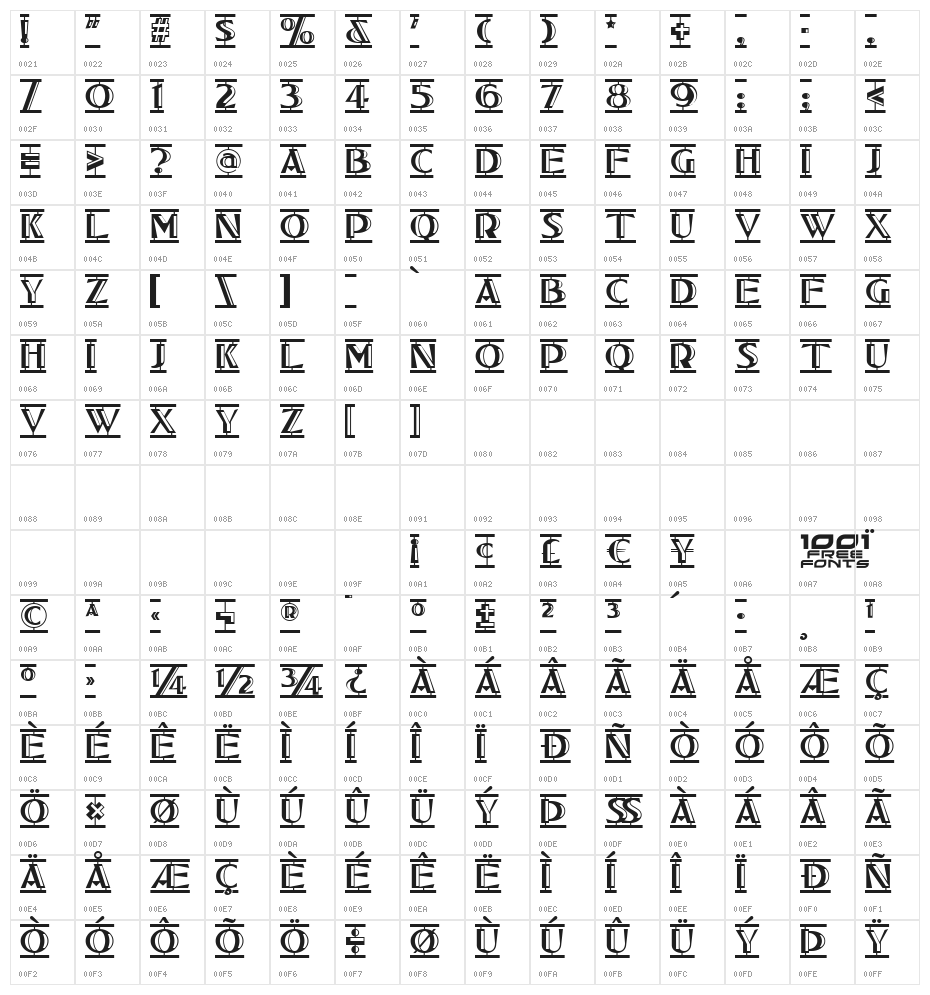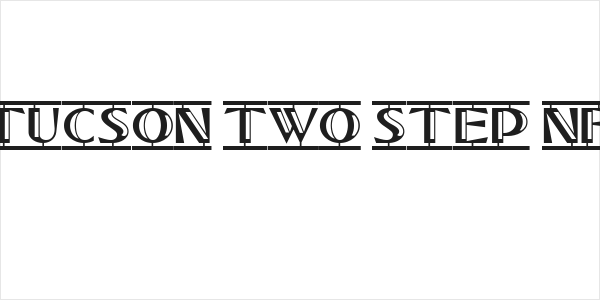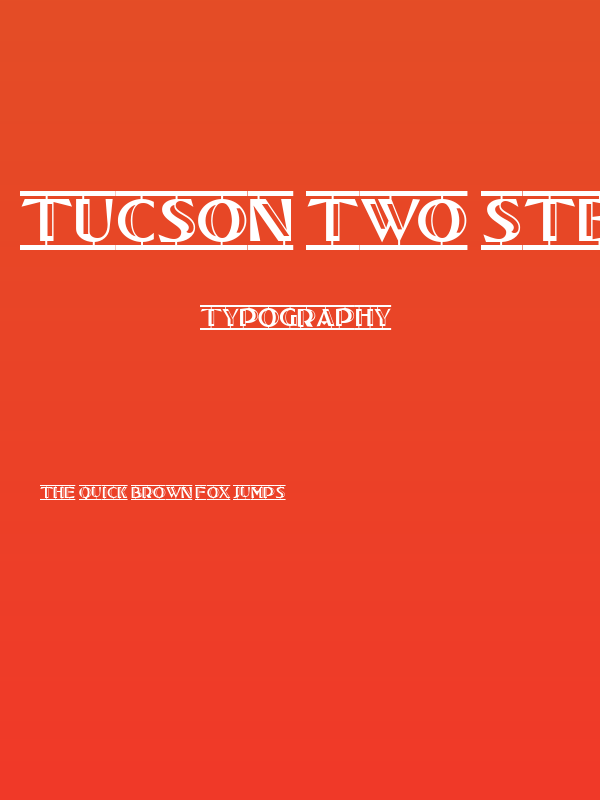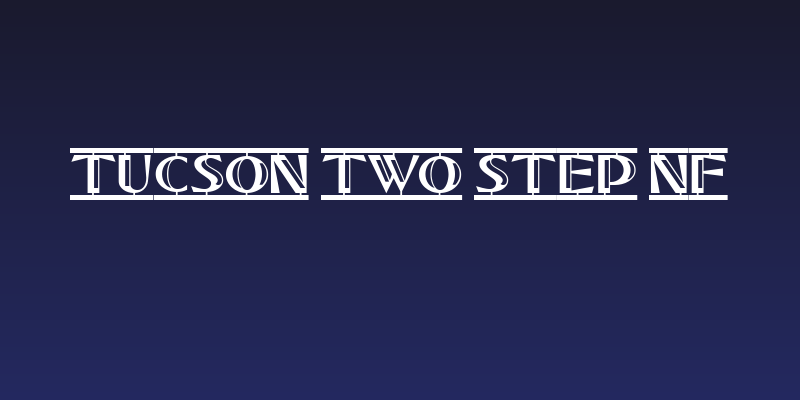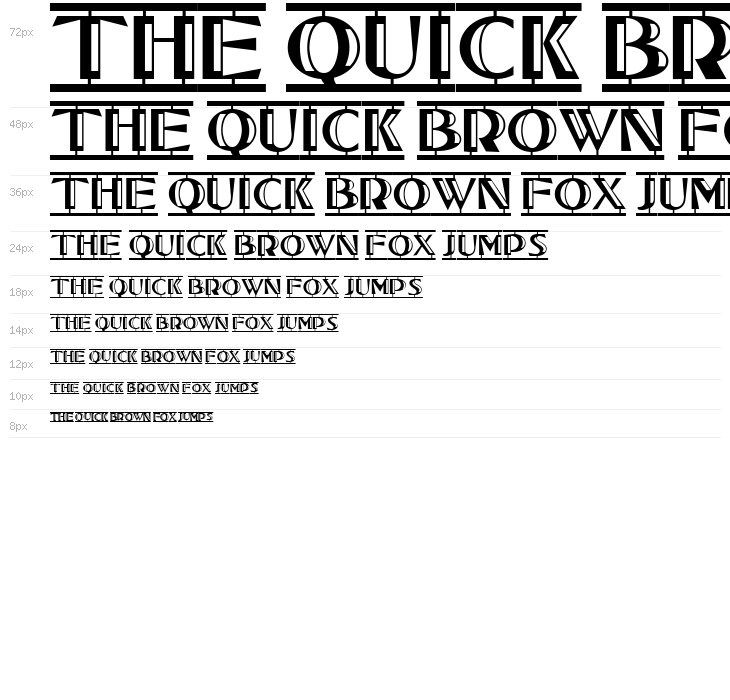
Tucson Two Step NF Font
Tucson Two Step NF Description
This font features a bold and decorative style with a unique geometric flair. The characters are designed with a combination of thick and thin strokes, creating a high contrast that enhances readability while maintaining an artistic appeal. The uppercase letters exhibit a strong presence with angular cuts and sharp edges, giving them a modern yet classic look. The numerals and special characters follow the same design principles, ensuring consistency across the typeface. This font's distinct style makes it suitable for eye-catching headlines and creative projects.
| Proposed Projects | Ideal for branding, poster design, album covers, and any project requiring a striking visual impact. |